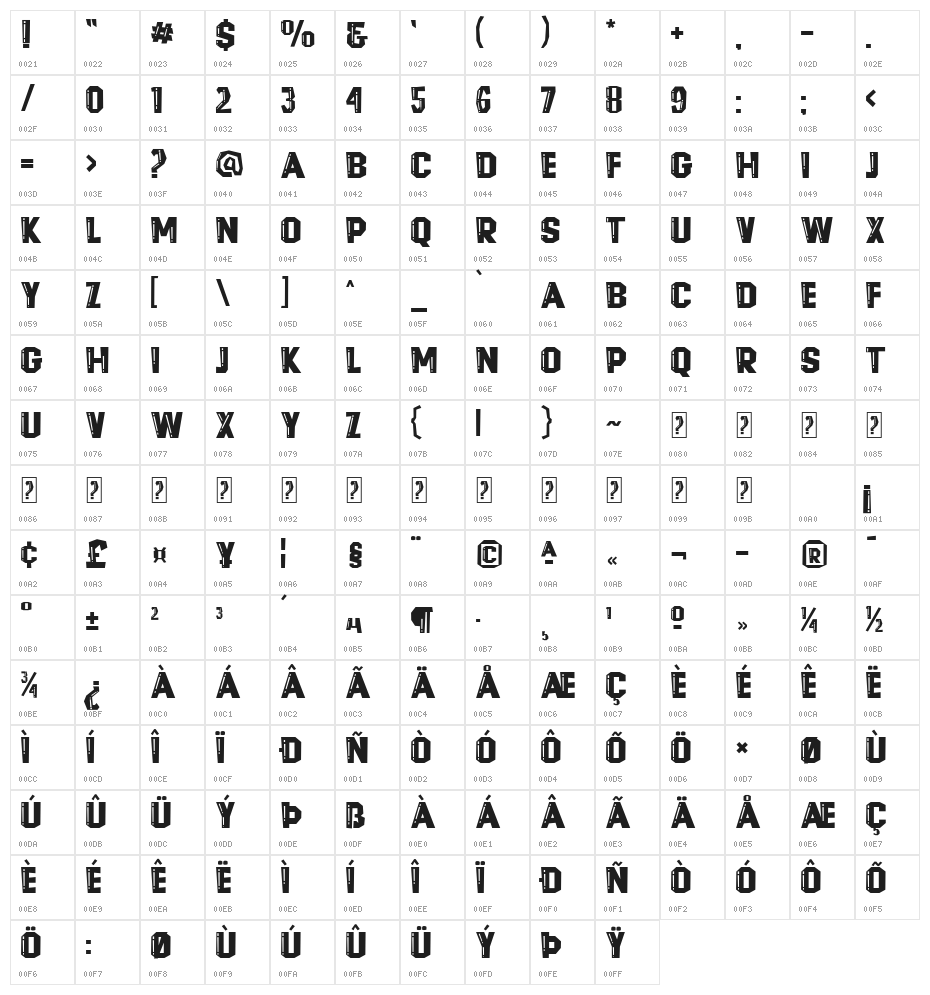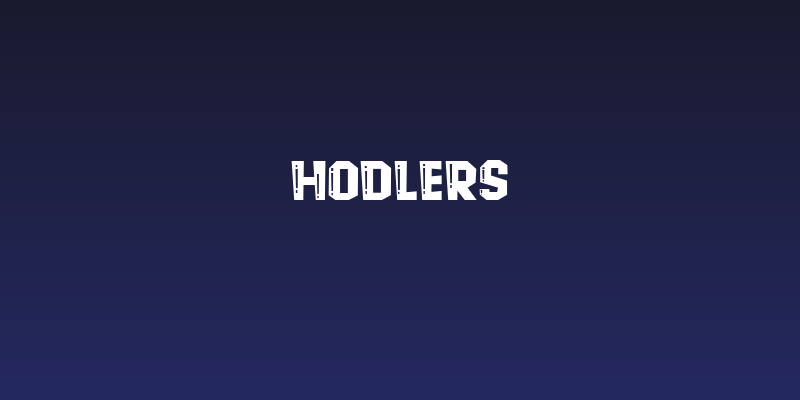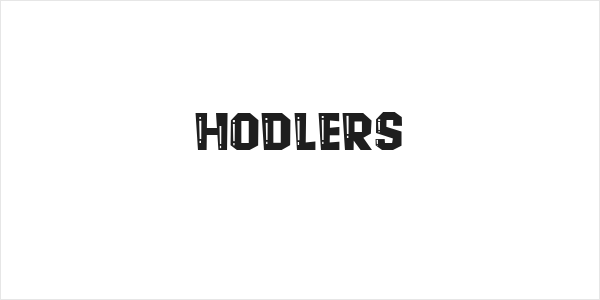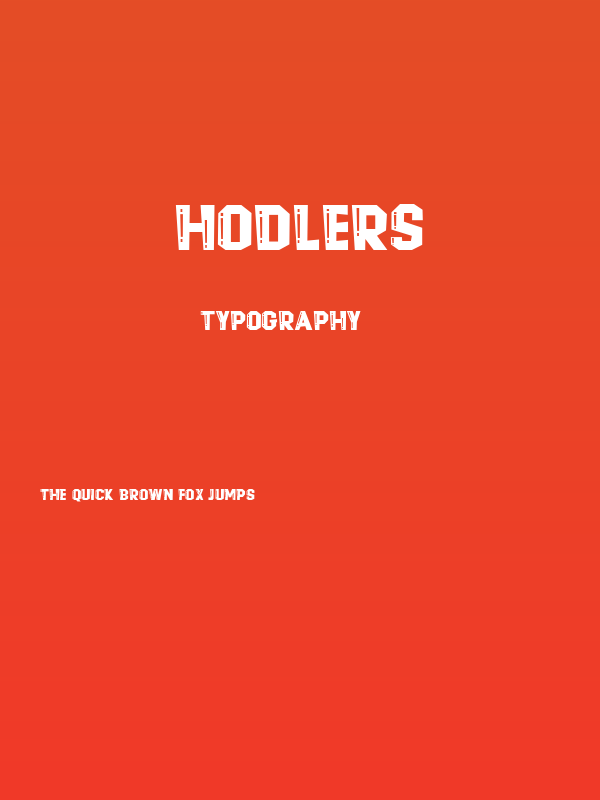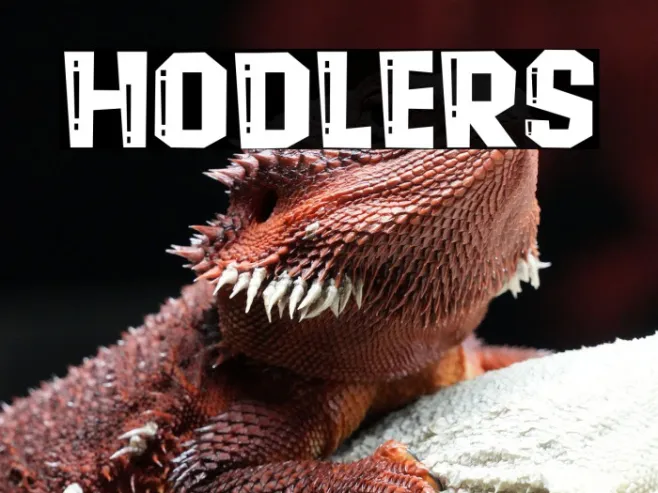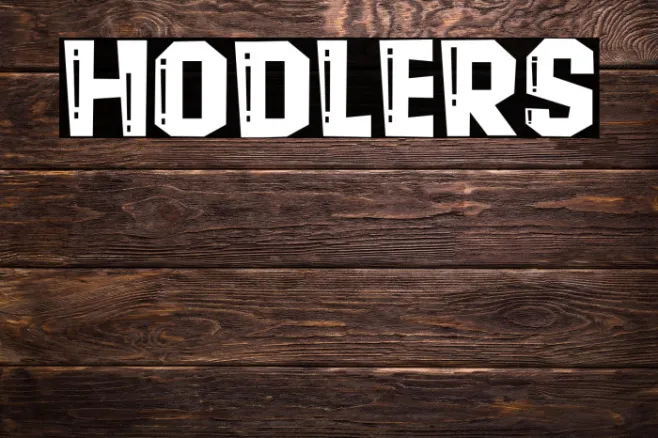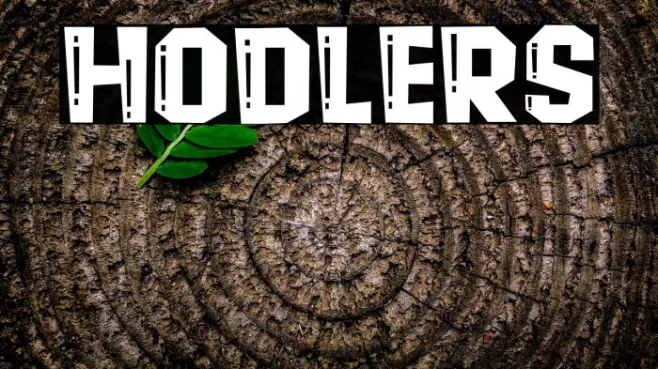
Hodlers Font
This font features a bold and striking design with a distinct stencil-like appearance. Each character is crafted with sharp, angular edges and cut-out sections that give it a rugged, industrial feel. The uppercase and lowercase letters maintain a consistent style, with a strong emphasis on geometric shapes and uniformity. Numbers and special characters are designed to match the boldness of the alphabet, ensuring a cohesive look across all text. The font's unique style makes it ideal for projects that require a strong visual impact.
| Overall Style | Industrial, Modern |
| Proposed Projects | Ideal for branding, posters, signage, and any project needing a strong, impactful typeface. |